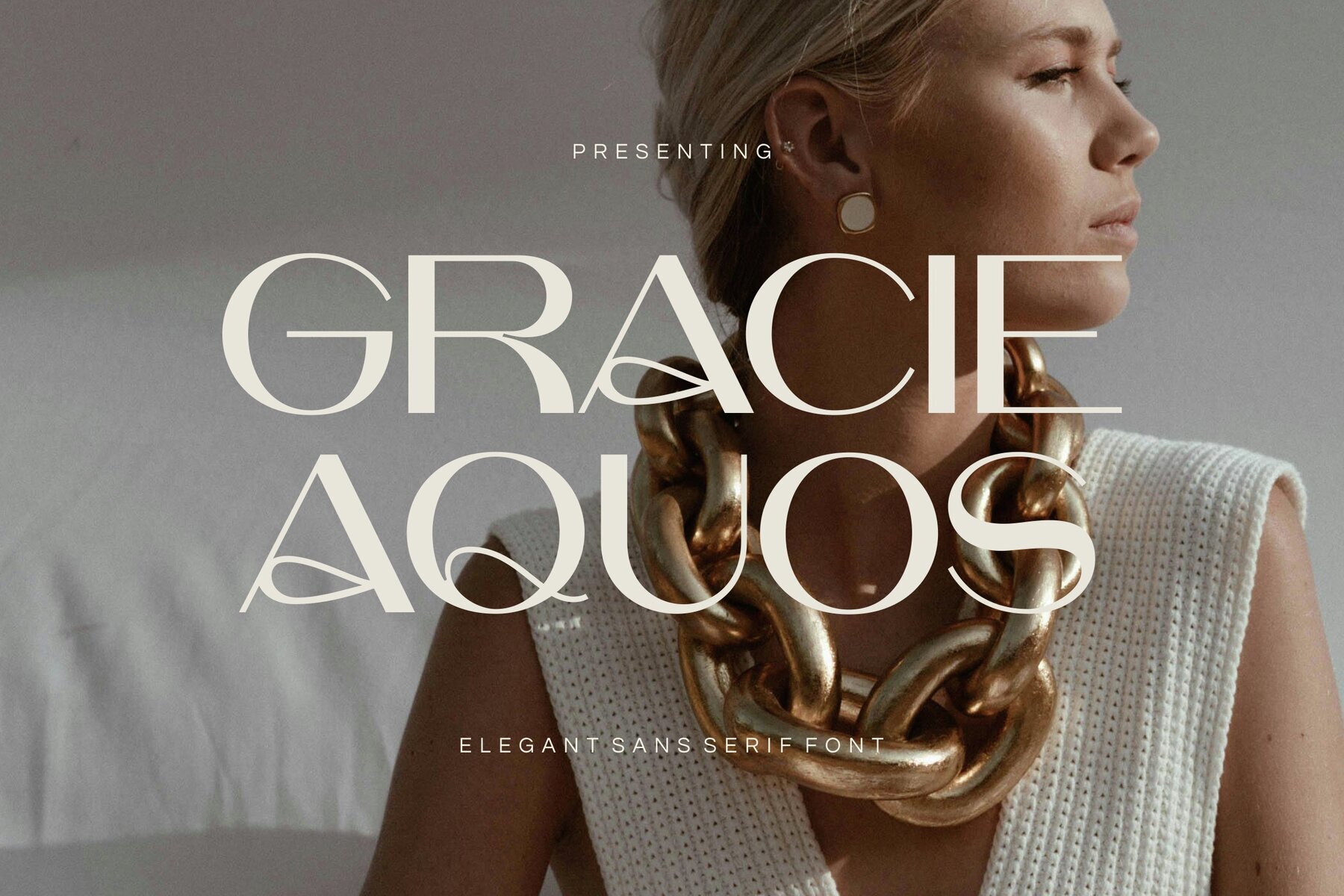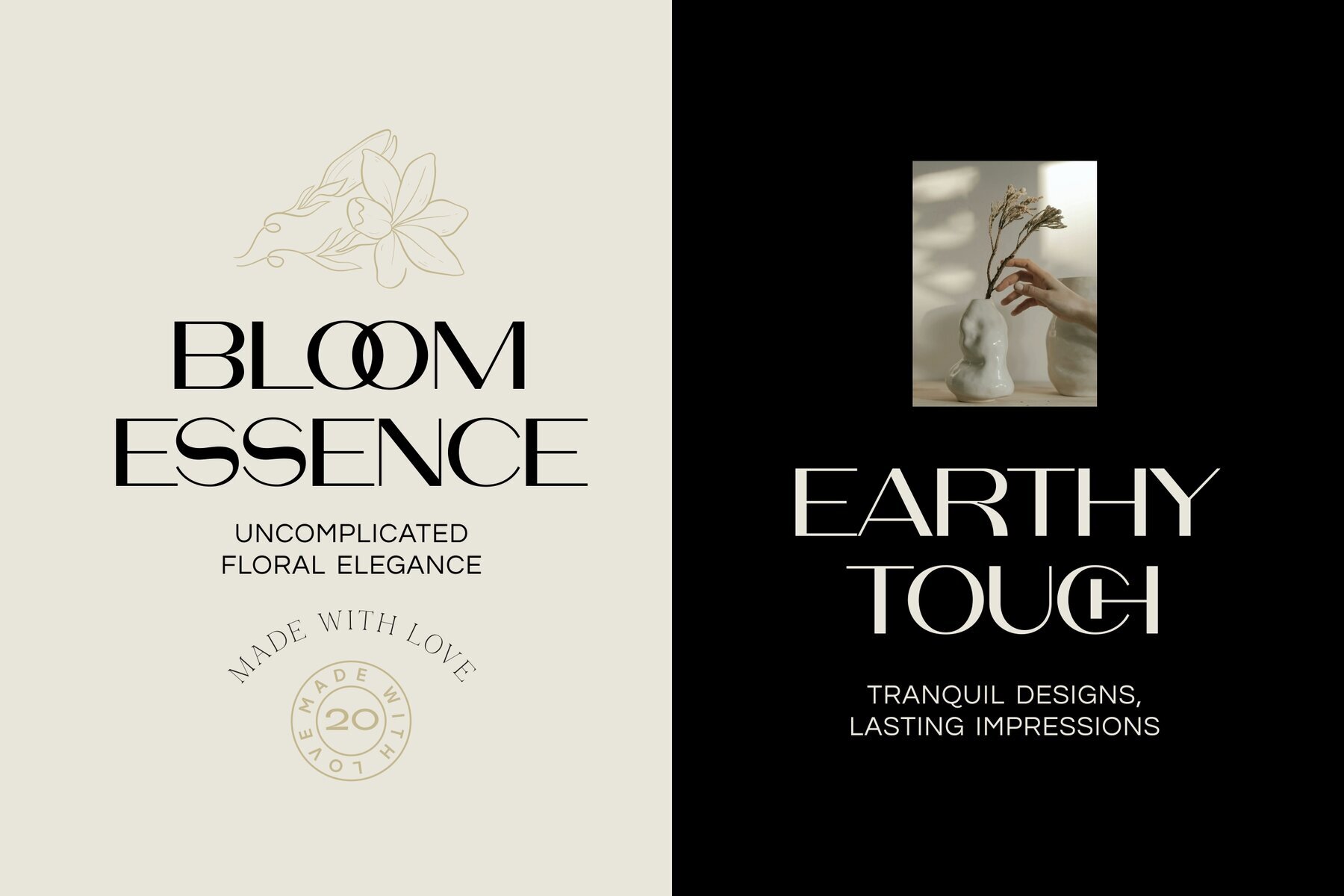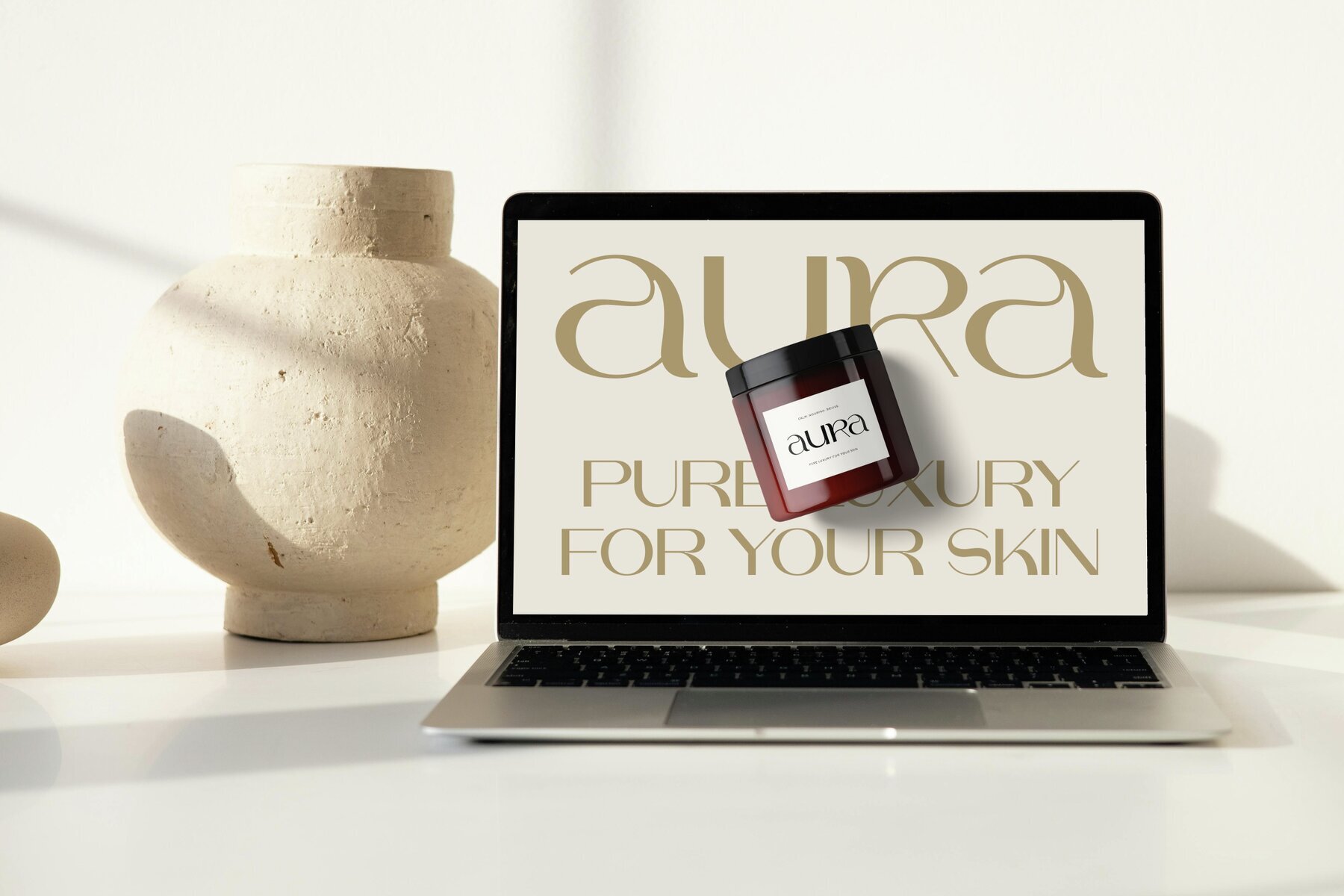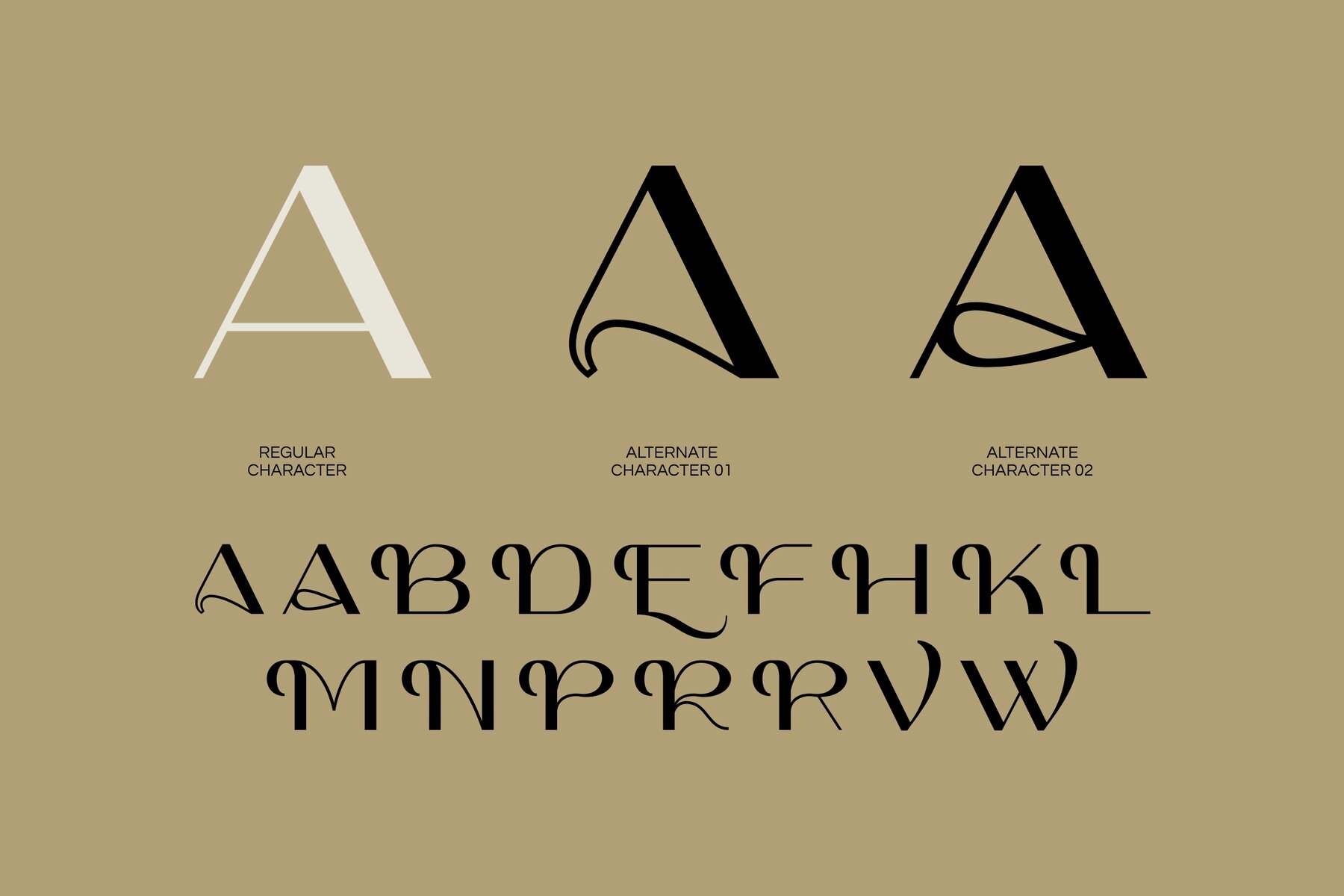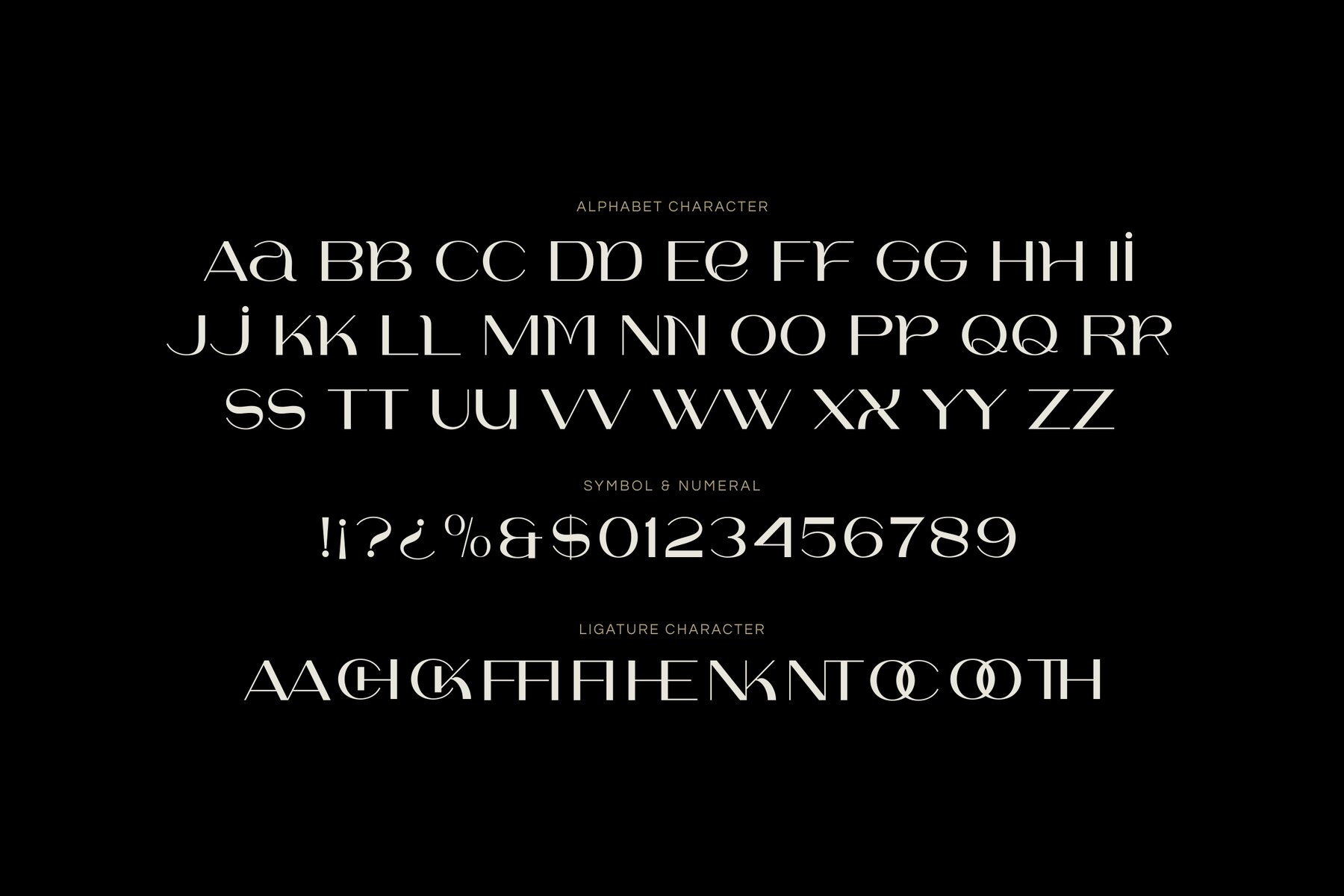
Gracie Aquos Font
Gracie Aquos Regular
Gracie Aquos presents a blend of modern minimalism and classic sophistication. Defined by its striking contrast between thick and thin strokes, this sans serif typeface offers a refined touch reminiscent of tradition, while maintaining a clean, contemporary character. It brings a sense of luxury and clarity that stands out in editorial design, branding, and impactful headlines. This versatile font includes alternate characters with graceful, calligraphic swashes—ideal for projects seeking a subtle, decorative accent. Gracie Aquos is well-suited to a wide range of high-end uses, capturing attention without sacrificing readability or style. Choose Gracie Aquos for design work where sophistication, versatility, and memorable aesthetics are essential.Gracie Aquos – Elegant Sans Serif Typeface